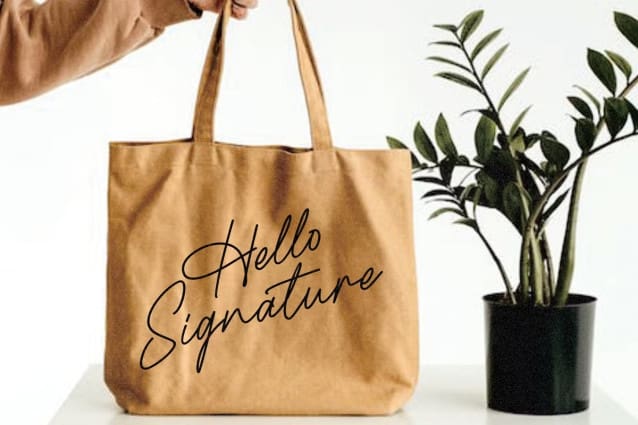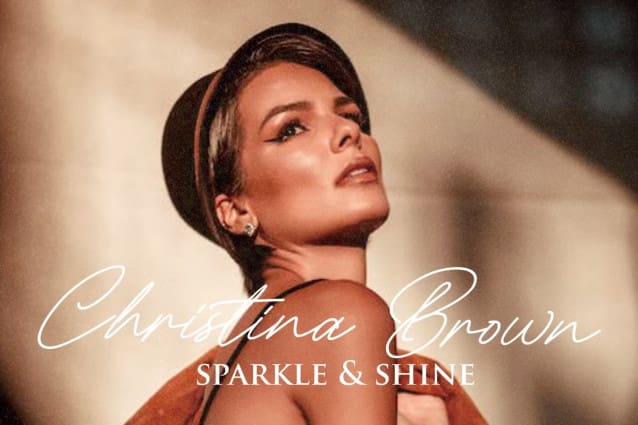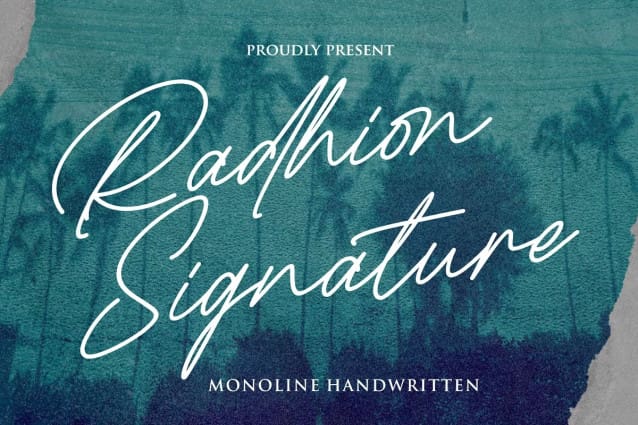
Radhion Signature Font
Radhion Signature Font ,exquisite monoline signature font, thoughtfully crafted to lend a touch of timeless simplicity to your creative projects. Elevate your designs with the effortless charm of a single, continuous line that captures the essence of a handwritten signature.
With its clean and uniform strokes, our monoline signature font exudes a sense of modern elegance while retaining the authenticity of a personal touch. Its versatile nature allows it to blend seamlessly into a myriad of design styles, making it the perfect choice for logos, branding materials, invitations, and more.